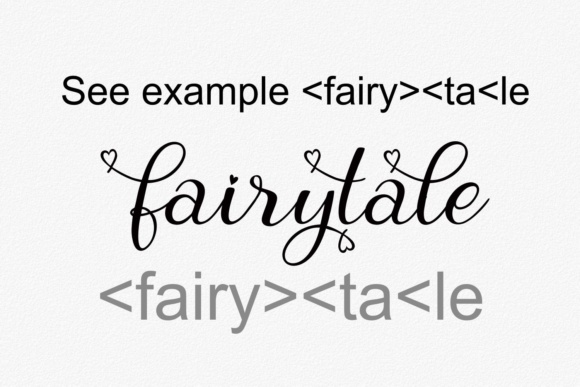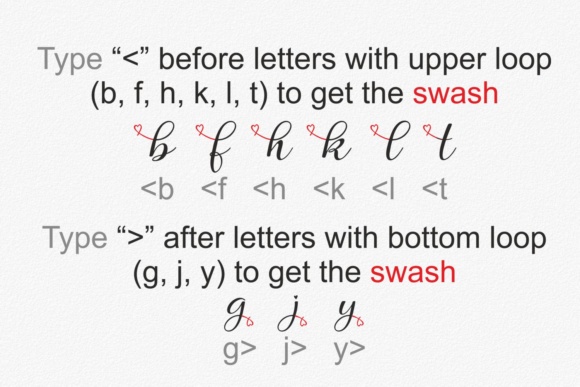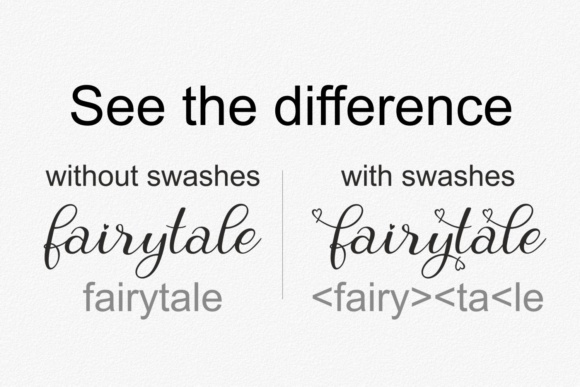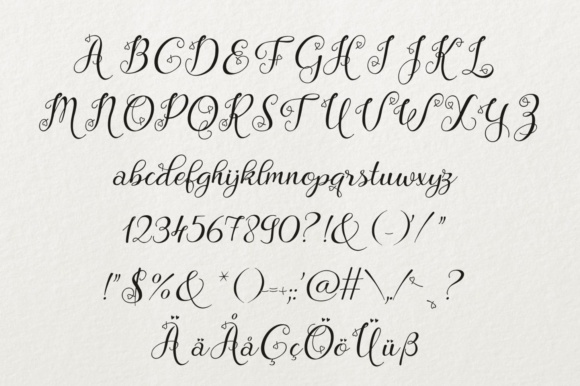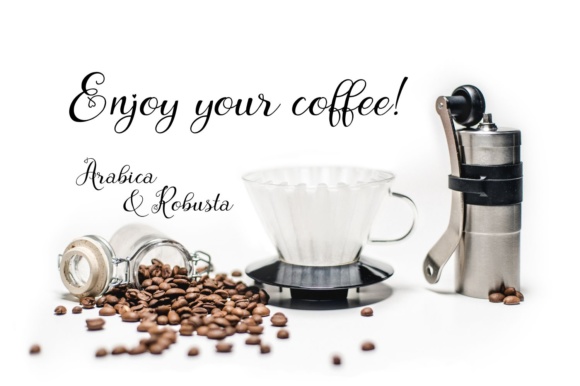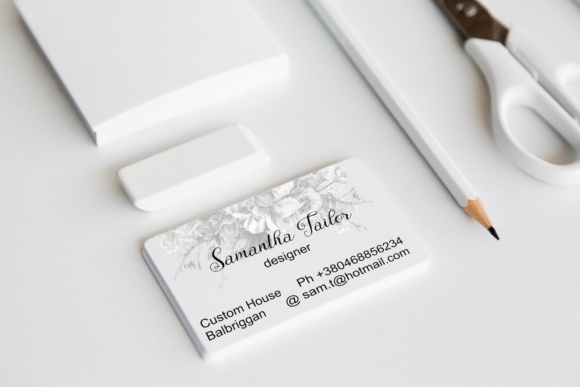
Introduction to Hebydia Font
Hebydia is a versatile, easy to use script font.
It has heart decorations which will give your design a playful romantic feel By combining the letters and basic characters you can easily get access to the swashes.
Key Features of Hebydia Font